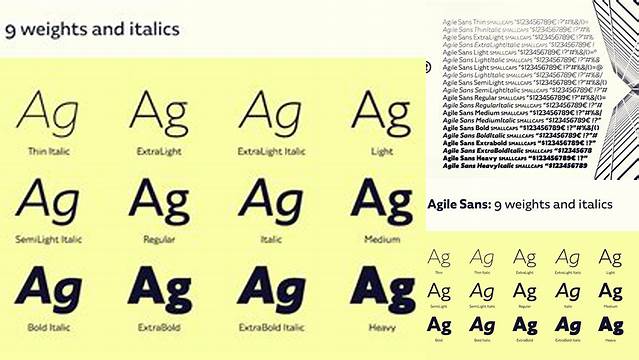
Hey there, design enthusiasts! Today, we're diving deep into the world of typography and specifically, the Agile Sans Heavy font. If you're on the hunt for a robust and impactful typeface, you've come to the right place. In this comprehensive guide, we'll explore everything you need to know about the Agile Sans Heavy font: how to get it as a free download, its various uses, and why it's become a favorite among designers. Whether you're a seasoned pro or just starting your design journey, understanding the nuances of fonts like Agile Sans Heavy can significantly elevate your work. So, let's get started and unlock the potential of this incredible typeface!
Understanding Agile Sans Heavy: What Makes It Special?
Let's kick things off by really understanding what Agile Sans Heavy brings to the table. This font is a member of the Agile Sans family, known for its clean lines and modern aesthetic. But what sets the Heavy variant apart? Well, it's all in the name, really! Agile Sans Heavy offers a bolder, more pronounced presence. It's designed to grab attention and make a statement. Think of it as the visual equivalent of a strong handshake—confident and memorable. The font's design is characterized by its:
- Thick Strokes: These create a powerful visual impact, making the font ideal for headlines, titles, and anything that needs to stand out.
- Modern Sans-Serif Design: It has a contemporary feel, perfect for designs that aim for a sleek, modern look. This makes it incredibly versatile.
- Readability: Despite its boldness, Agile Sans Heavy is surprisingly readable, ensuring that your message is clear and easy to understand, even at larger sizes. This is super important, guys, especially when you want to make a big impact without sacrificing clarity.
How to Use Agile Sans Heavy in Your Designs
Alright, you've got the Agile Sans Heavy font; now what? This bold typeface offers a lot of design possibilities. Let's break down some effective ways to use it and maximize its visual impact. The key is to use it wisely, complementing your overall design strategy.
- Headlines and Titles: This is the sweet spot for Agile Sans Heavy. Its weight makes it perfect for grabbing attention. Use it for website headers, poster titles, and social media graphics where you want to immediately draw the viewer's eye. Because it's so strong, make sure to use it sparingly in these areas, and avoid overusing it in body text. This will help to maintain readability and prevent visual fatigue.
Conclusion: Unleash Your Creativity with Agile Sans Heavy